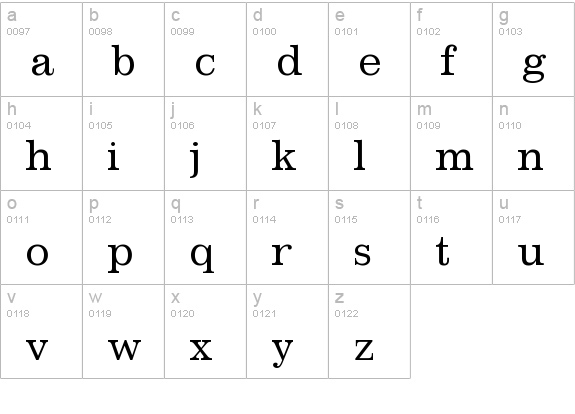
Classic SSi Font Details
Classic SSi font is a timeless and elegant typeface that exudes sophistication and charm. Its classic serif design makes it perfect for a wide range of projects, from formal invitations to vintage-inspired branding. The font features clean lines and well-balanced proportions, giving it a polished and professional look. Best of all, Classic SSi font is available for free download at FontsMarket.com. This means you can easily access this beautiful typeface and use it in your designs without any cost. Whether you're working on a personal project or a client's work, Classic SSi font is a versatile choice that will add a touch of timeless elegance to any design. Download it today and elevate your typography game with this stunning typeface.